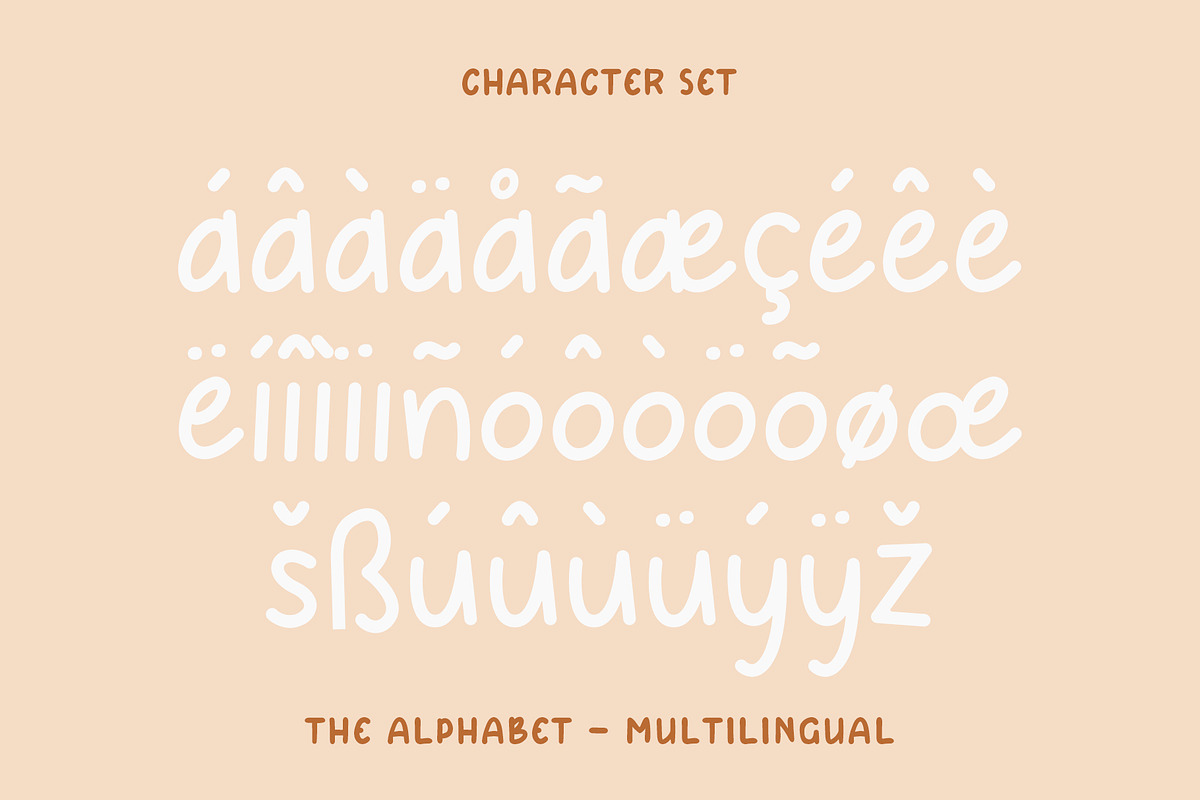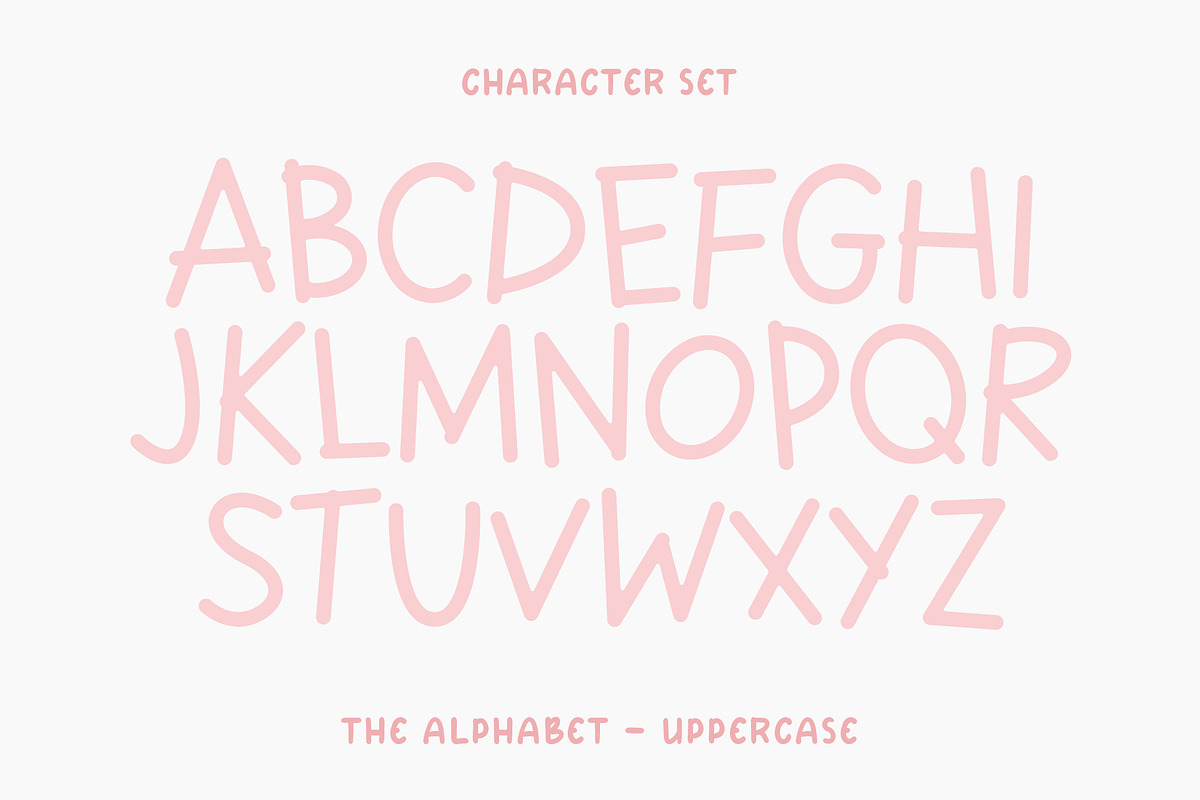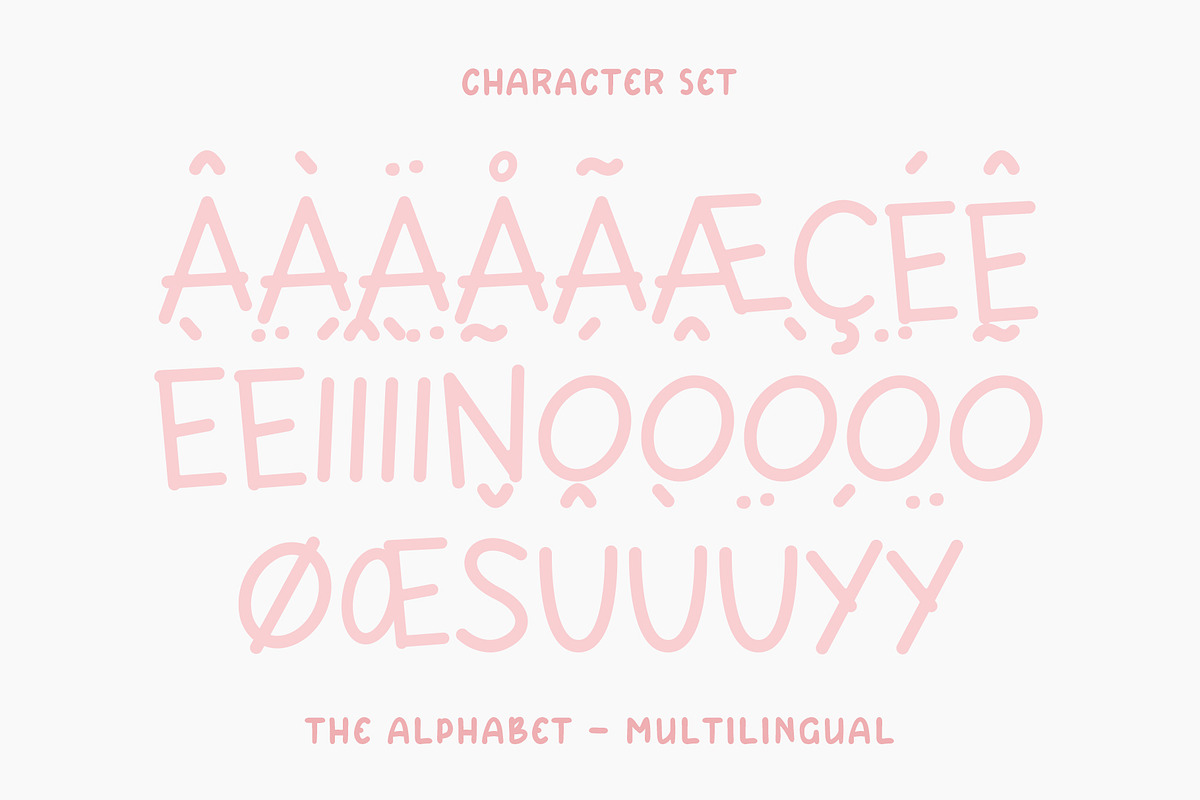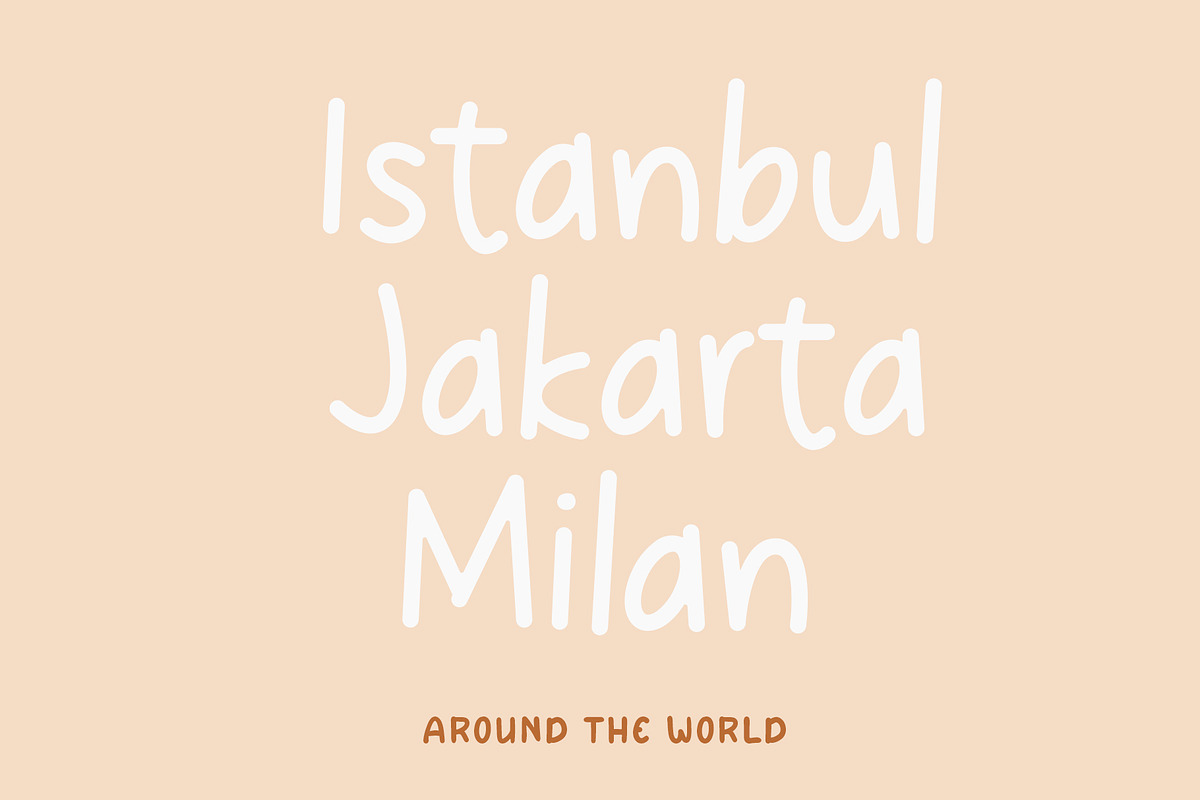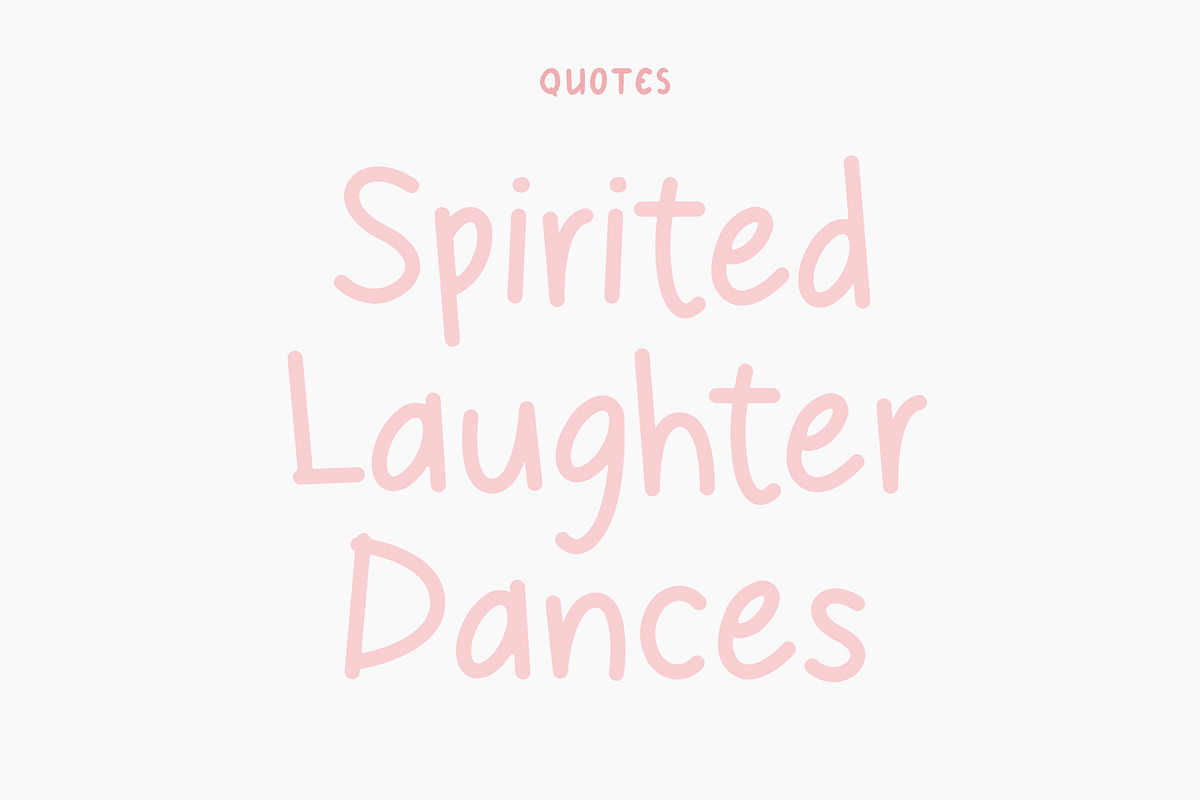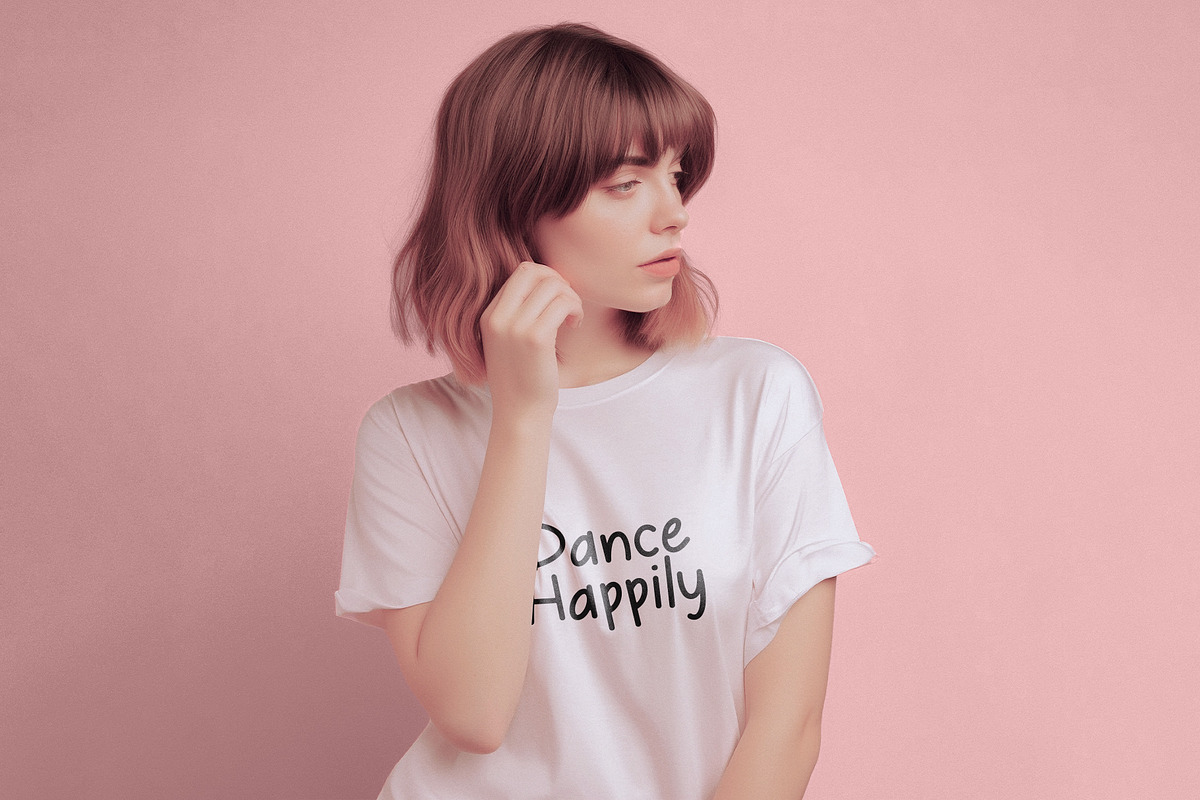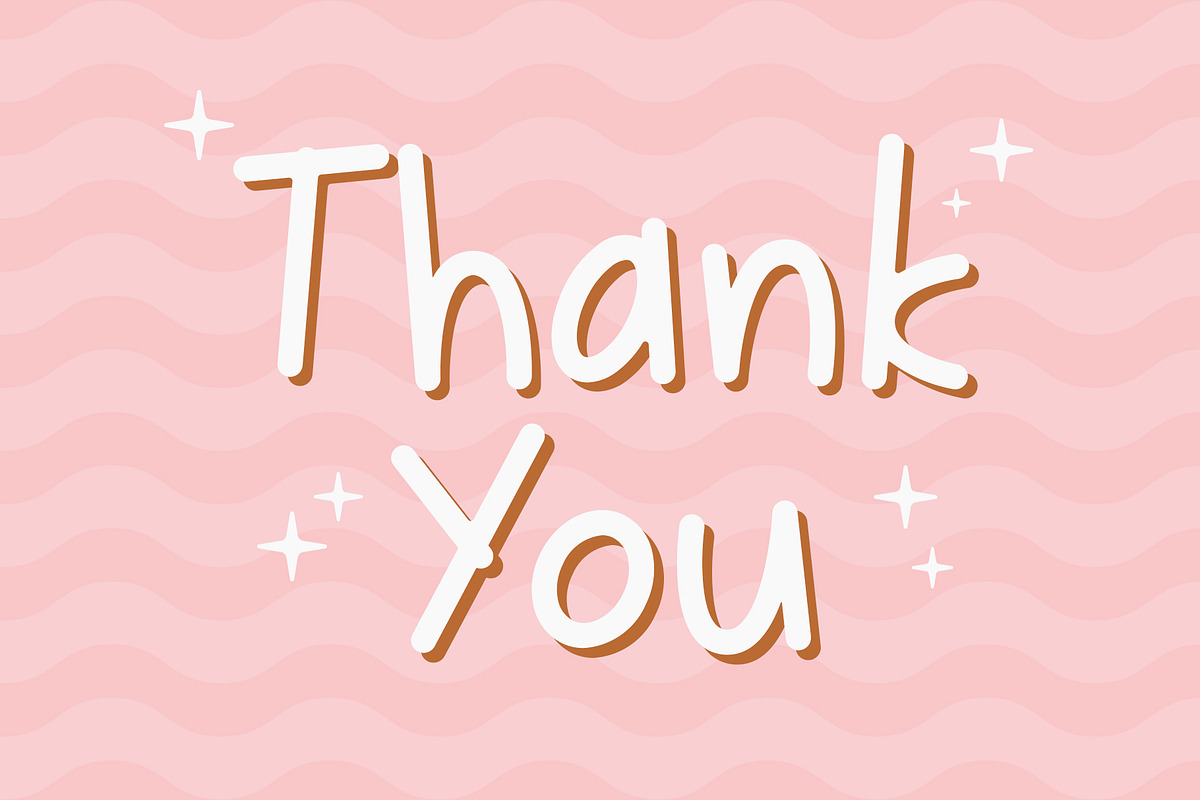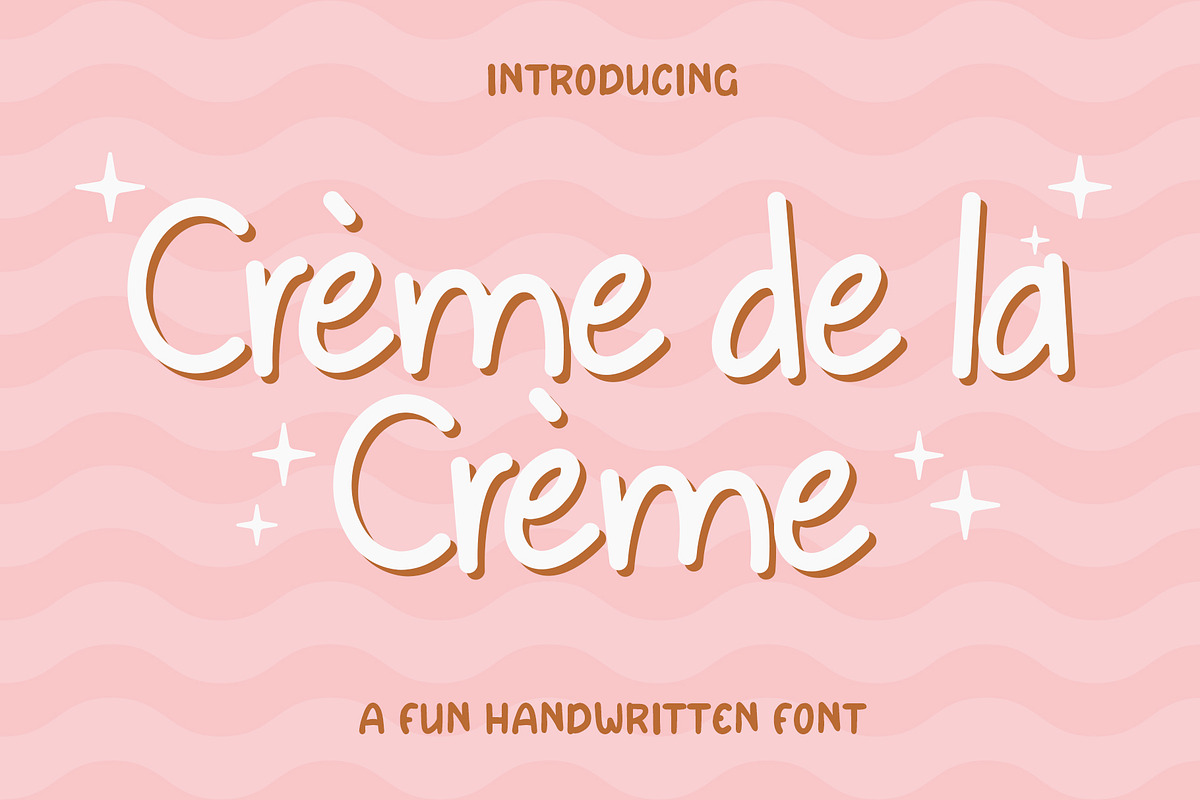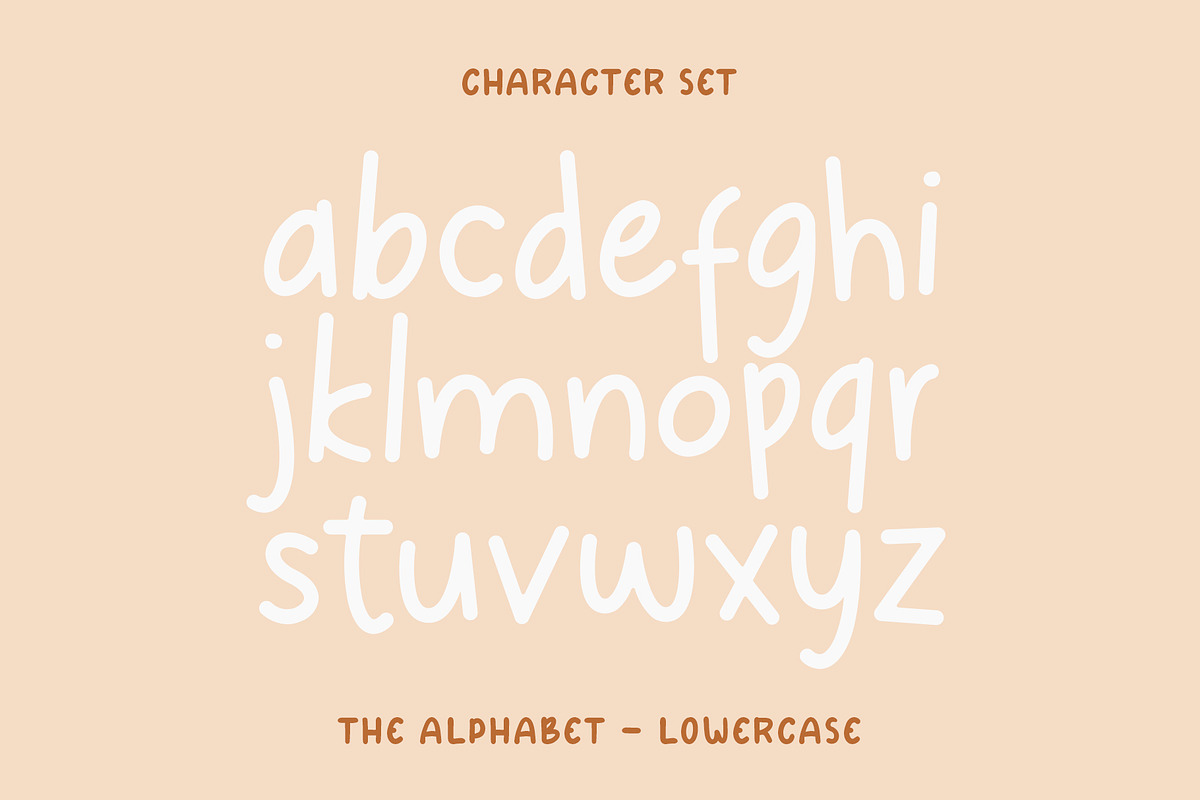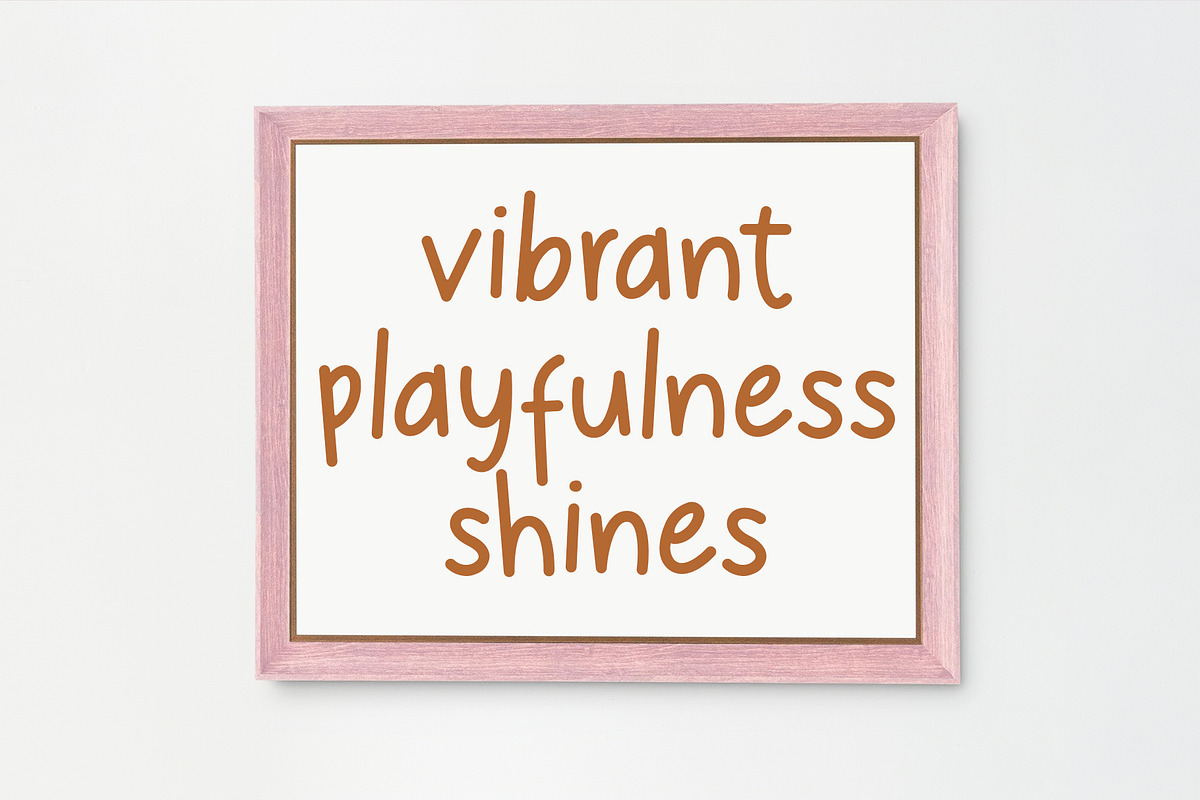
Creme de la Creme - Sans Serif
Creme de la Creme is a beautiful sans-serif handwritten font style that exudes elegance and sophistication. This font features hand-drawn letterforms with clean lines and a minimalistic design, creating a perfect balance between simplicity and elegance.
The Creme de la Creme font family includes uppercase and lowercase letters, numbers, punctuation marks, and special characters, offering flexibility for a range of design applications. With its gentle curves, refined shapes, and sophisticated feel, Creme de la Creme is ideal for use in luxury branding, editorial design, packaging, and more. This font is the perfect choice for designers looking to add a touch of class and sophistication to their projects.